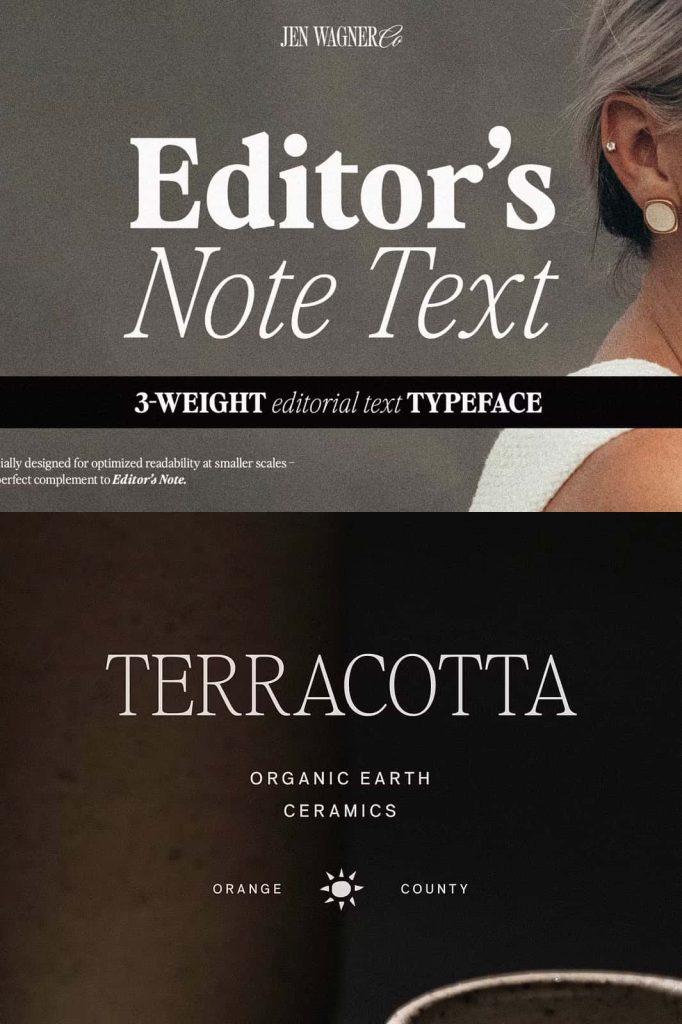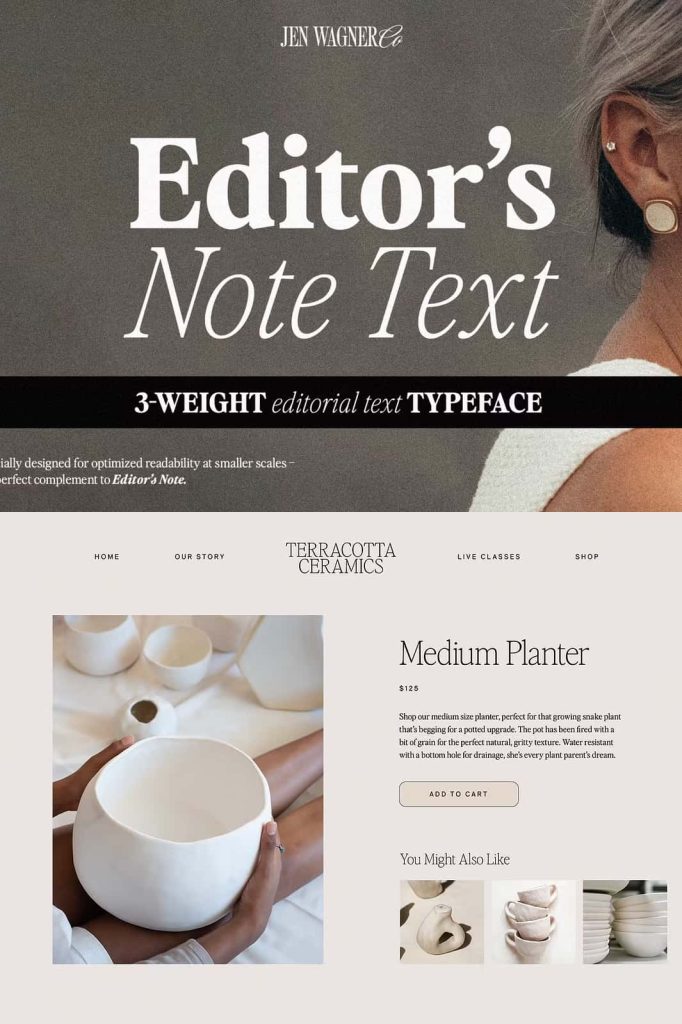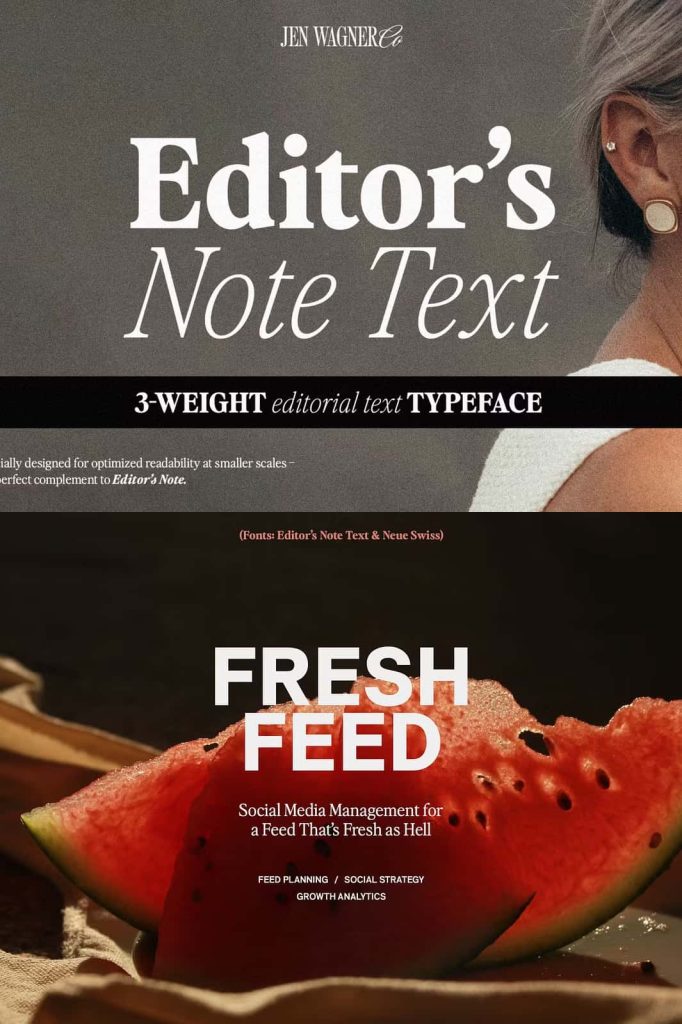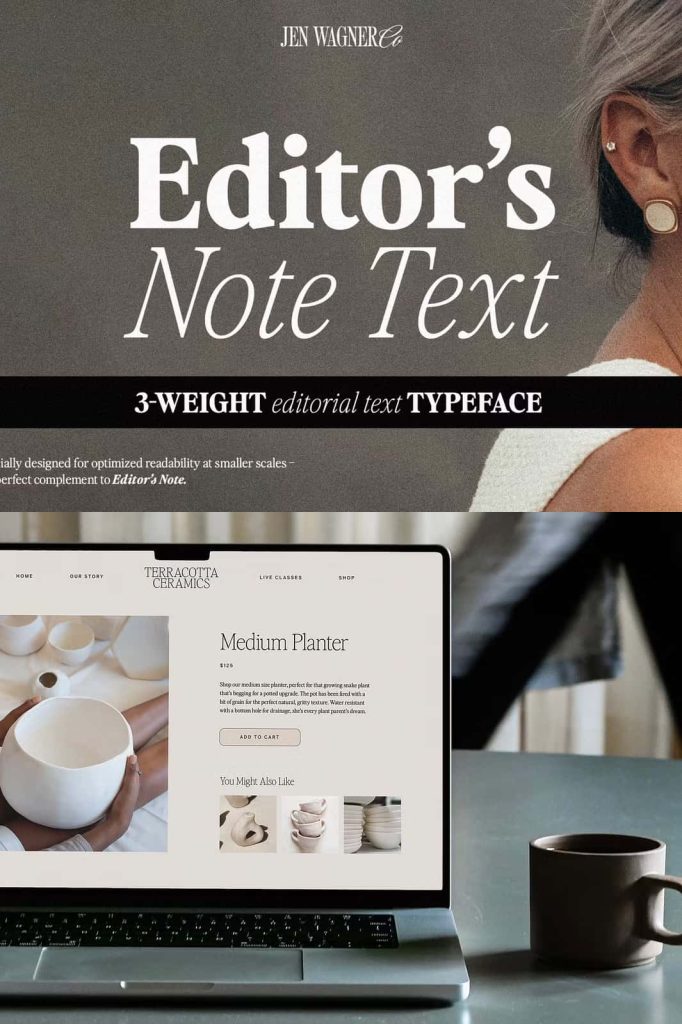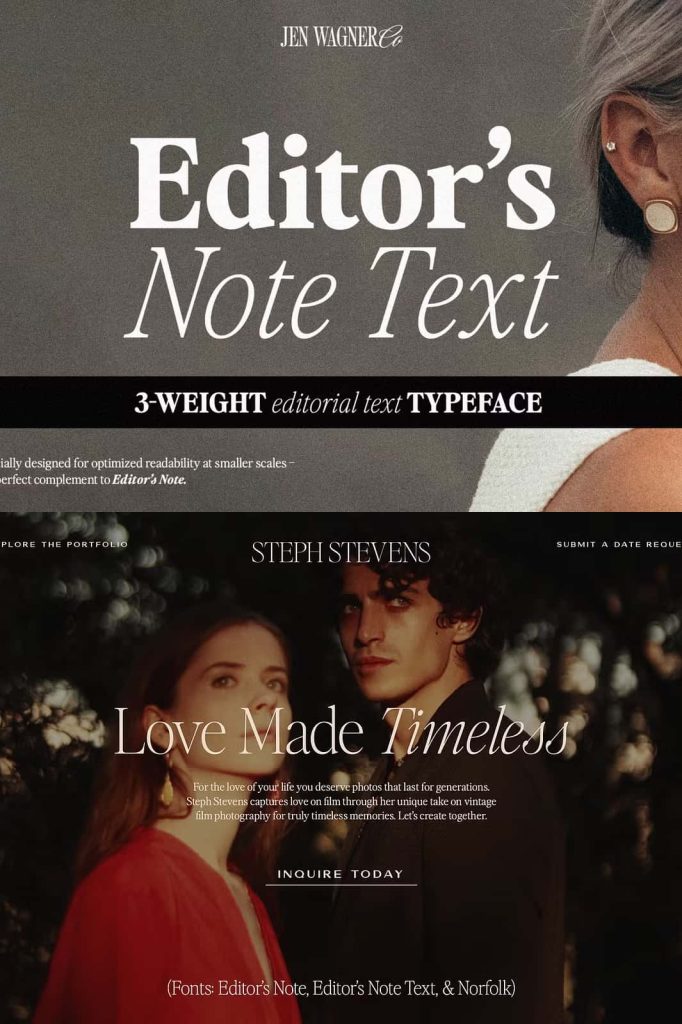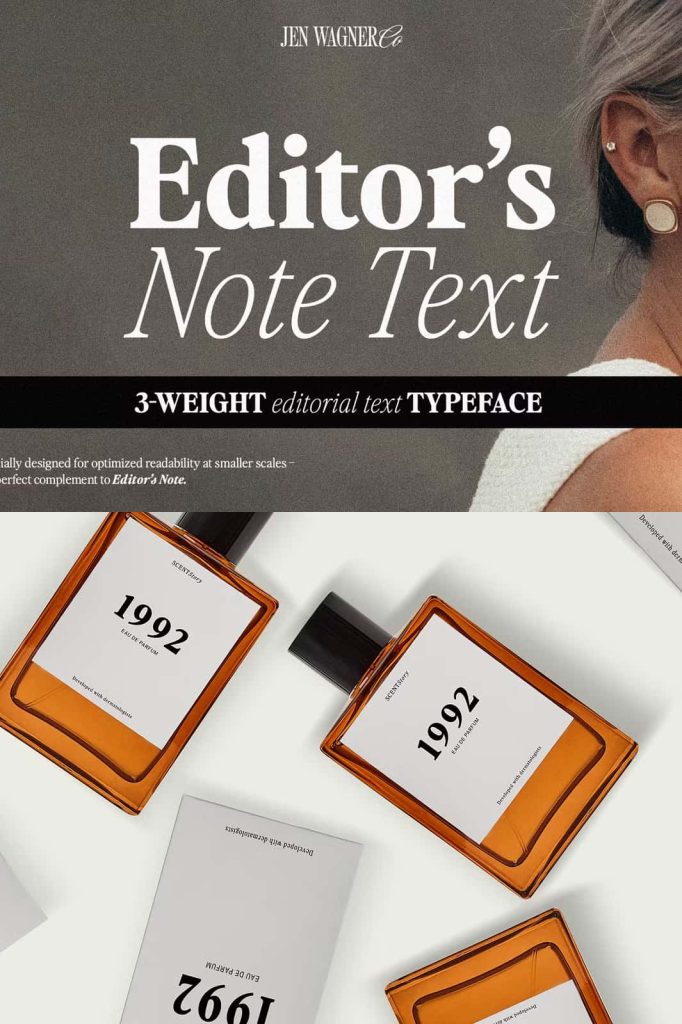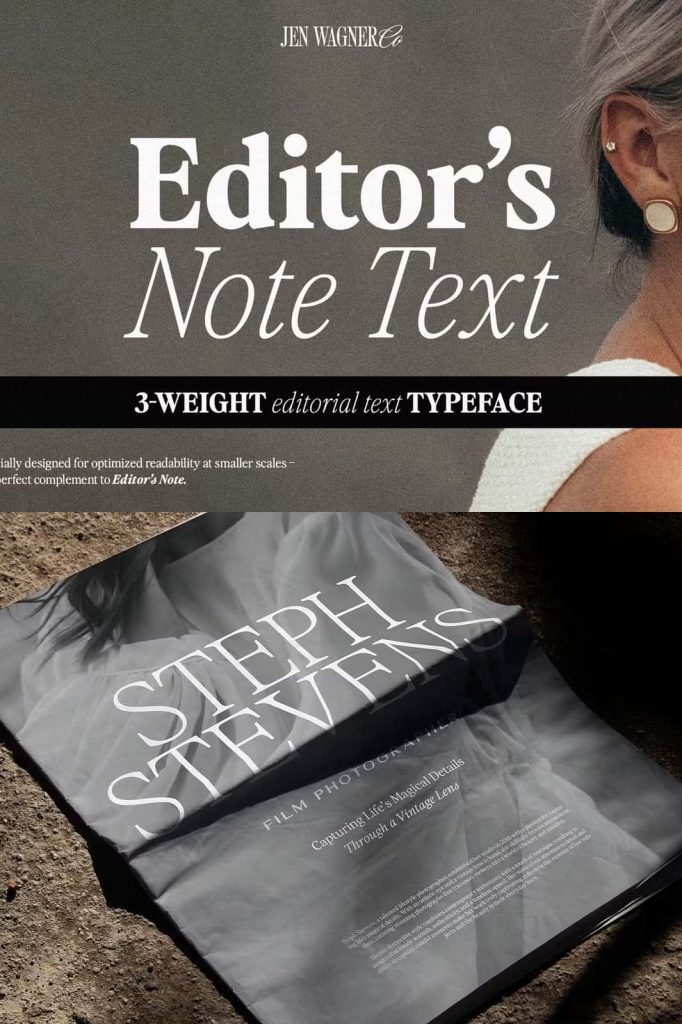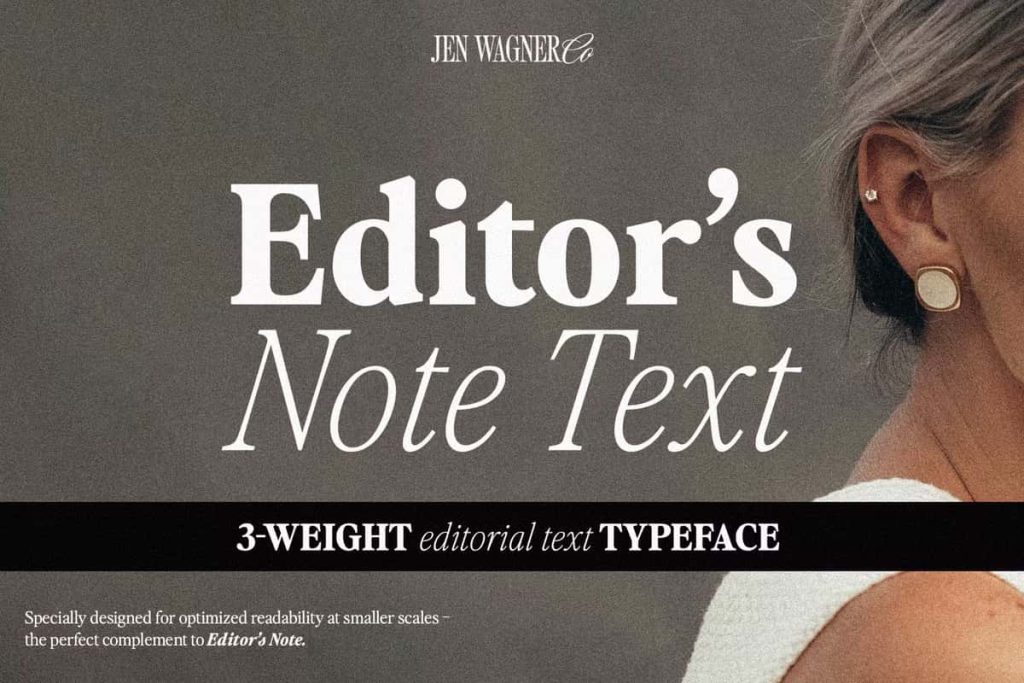
That’s where Editor’s Note Text comes in! Designed specifically for text, Editor’s Note Text works better at small scales and is a lot easier to read. So you get the same vibe as Editor’s Note with the readability of a text typeface.